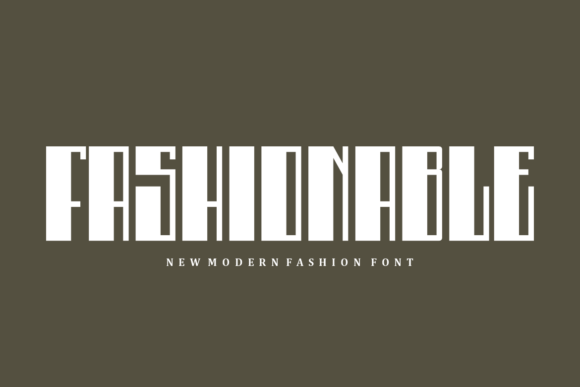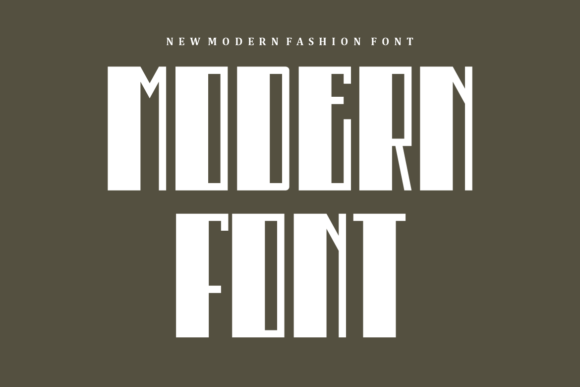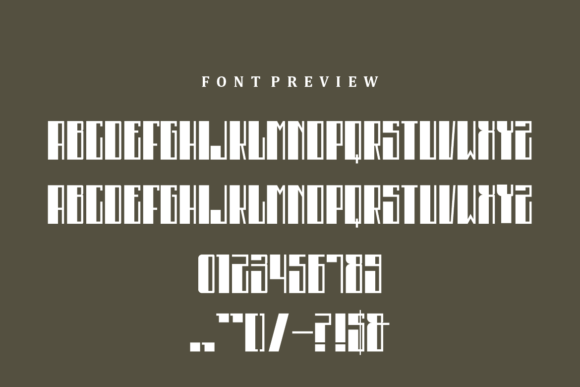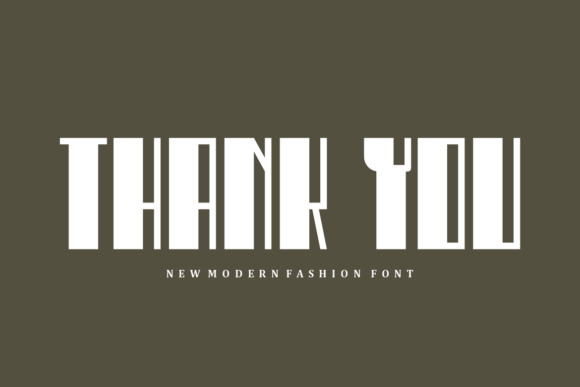
Crazy Fashion Font: Make a Statement with Bold, Blocky Style
In the world of design, fonts play a crucial role in conveying the message and tone of a project. When it comes to making a strong, stylish statement, few fonts can match the impact of Crazy Fashion. This bold, blocky font is designed to grab attention and stand out from the crowd, making it perfect for eye-catching designs.
What is Crazy Fashion Font?
Crazy Fashion is a bold, blocky font that features thick, angular letters. Its unique design makes it perfect for headlines, titles, and other applications where you want to make a strong impression. The font’s bold and chunky design ensures that it stands out, even at smaller sizes.
Key Features of Crazy Fashion Font
- Bold and Blocky Design: Crazy Fashion’s thick, angular letters make it perfect for designs that require a strong, stylish statement.
- Attention-Grabbing: The font’s unique design ensures that it grabs attention and stands out from the crowd.
- Versatile: Crazy Fashion can be used for a wide range of design projects, from fashion and beauty to technology and entertainment.
- Easy to Read: Despite its bold design, Crazy Fashion is easy to read, even at smaller sizes.
Uses of Crazy Fashion Font
Crazy Fashion is a versatile font that can be used for a wide range of design projects. Here are some of the most popular uses of this font:
- Fashion and Beauty: Crazy Fashion is perfect for fashion and beauty brands that want to make a strong, stylish statement.
- Headlines and Titles: The font’s bold and chunky design makes it perfect for headlines and titles.
- Advertising and Marketing: Crazy Fashion can be used to create eye-catching ads and marketing materials.
- Signage and Displays: The font’s bold design makes it perfect for signage and displays.
Benefits of Using Crazy Fashion Font
There are several benefits to using Crazy Fashion in your designs:
- Instant Impact: The font’s bold design ensures that your message is noticed immediately.
- High-Quality Design: The font is designed to high-quality standards, ensuring that it looks great in any design.
Tips for Using Crazy Fashion Font
Here are some tips for using Crazy Fashion in your designs:
- Use it Sparingly: Crazy Fashion is a bold font, so use it sparingly to avoid overwhelming your design.
- Pair it with Other Fonts: The font can be paired with other fonts to create a unique and stylish look.
- Experiment with Colors: Crazy Fashion looks great in a wide range of colors, so experiment to find the perfect shade for your design.
Crazy Fashion is a bold, blocky font that makes a strong, stylish statement. Its thick, angular letters stand out and grab attention, perfect for eye-catching designs. With its versatile design, ease of use, and cost-effectiveness, Crazy Fashion is a great choice for designers and crafters who want to add a bold, stylish touch to their designs.
So why wait? Get creative with Crazy Fashion and take your designs to the next level. With its bold, blocky design and attention-grabbing style, Crazy Fashion is the perfect font for designers and crafters who want to make a statement.